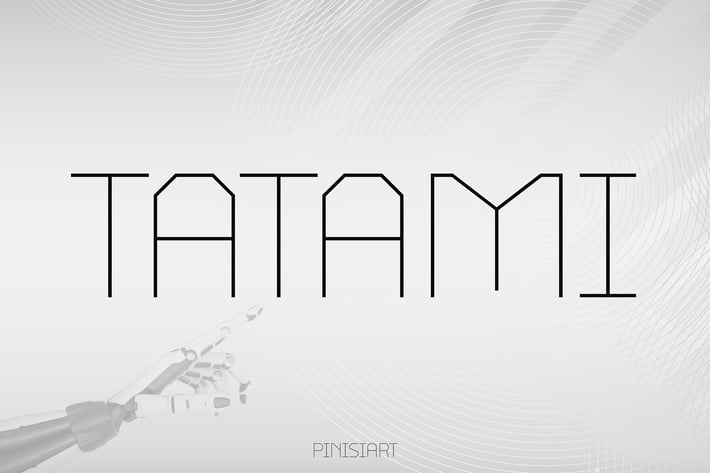
Modern Japanese Inspired Font - Tatami
TATAMI - Modern Techno Font
TATAMI delivers sharp, modular letterforms built for the age of digital design. With straight-line consistency, minimal curves, and a grid-based aesthetic, this font evokes the clean efficiency of sci-fi UIs and cybernetic systems. Inspired by Japanese structural rhythm and futuristic architecture, it’s ideal for tech branding, digital dashboards, coding products, or any project that needs a smart, minimal display typeface. Tatami’s extended spacing and monospaced energy give your text an instantly modern edge.
For designers working in AI, blockchain, web3, or tech editorial spaces, TATAMI makes typography feel as futuristic as the technology itself. Whether you’re branding an app startup, building out a space-themed game UI, or creating concept visuals for metaverse products, this font brings mechanical precision and clean geometry to the forefront.
Key Features :
Designed with Grid-Based Logic : Built on modular symmetry for balance and predictability in display use.
Perfect for Next-Gen Creators : Ideal for UI design, app branding, tech interfaces, metaverse pitch decks, and sci-fi titles.
Solves a Core Display Need : Need something sleek, futuristic, and highly legible at scale? TATAMI avoids ornamental distractions and delivers clarity with style.
Upgrade your future-facing visuals with TATAMI — the techno display font built to lead in innovation. Perfect for developers, designers, and digital thinkers ready to create tomorrow’s brand language today.